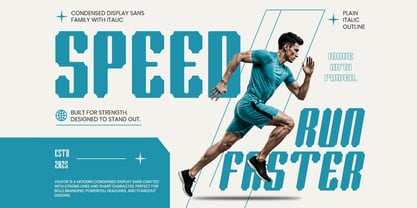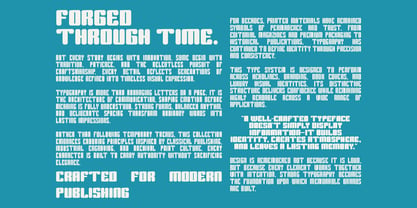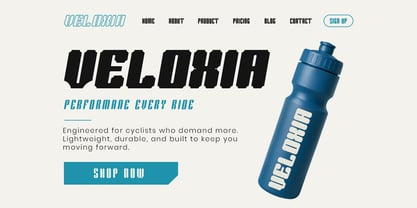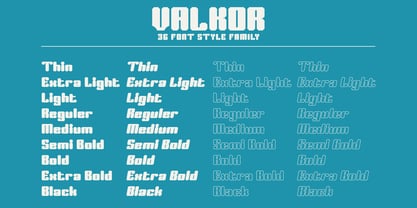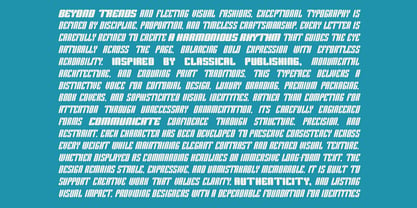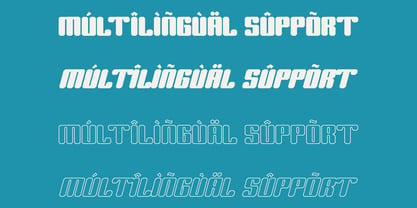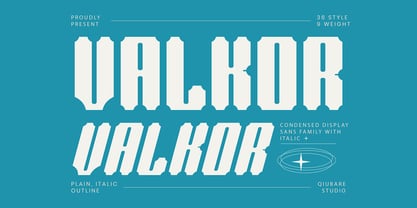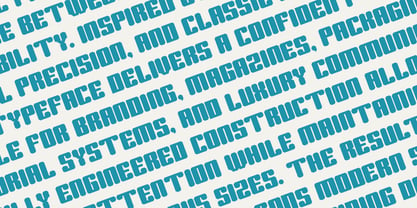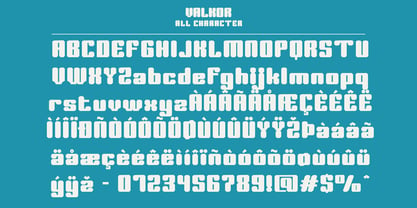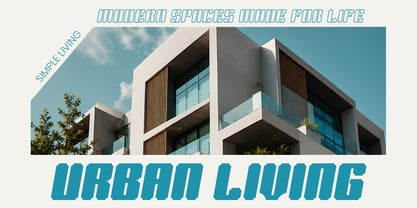
Valkor
by Qiubare Studio
The Valkor Font Family was designed by Michael Everson and published by Qiubare Studio. Valkor contains 36 styles and family package options. More about this family
Valkor is a bold condensed display sans family crafted for designers who demand powerful typography with outstanding versatility. Featuring 36 styles across 9 weights including Regular, Italic, Outline, and Outline Italic, Valkor delivers a commanding visual presence while maintaining excellent readability.
Inspired by industrial signage, vintage athletic lettering, and contemporary editorial design, Valkor combines sharp geometric construction with modern proportions. Its strong personality makes it ideal for branding, sports graphics, packaging, posters, editorial layouts, websites, UI design, apparel, and premium visual identities.
Whether you're building a dynamic brand, creating impactful headlines, or designing modern campaigns, Valkor provides the flexibility and visual confidence to elevate every project.
• 36 Font Styles
• 9 Weights
• Plain, Italic, Outline & Outline Italic
• 240+ Glyphs
• Multilingual Support
• Uppercase & Lowercase
• Numerals & Punctuation
• OpenType Features
• Perfect for Branding, Editorial, Posters, Packaging, Sports, Logos, UI, Social Media & Advertising